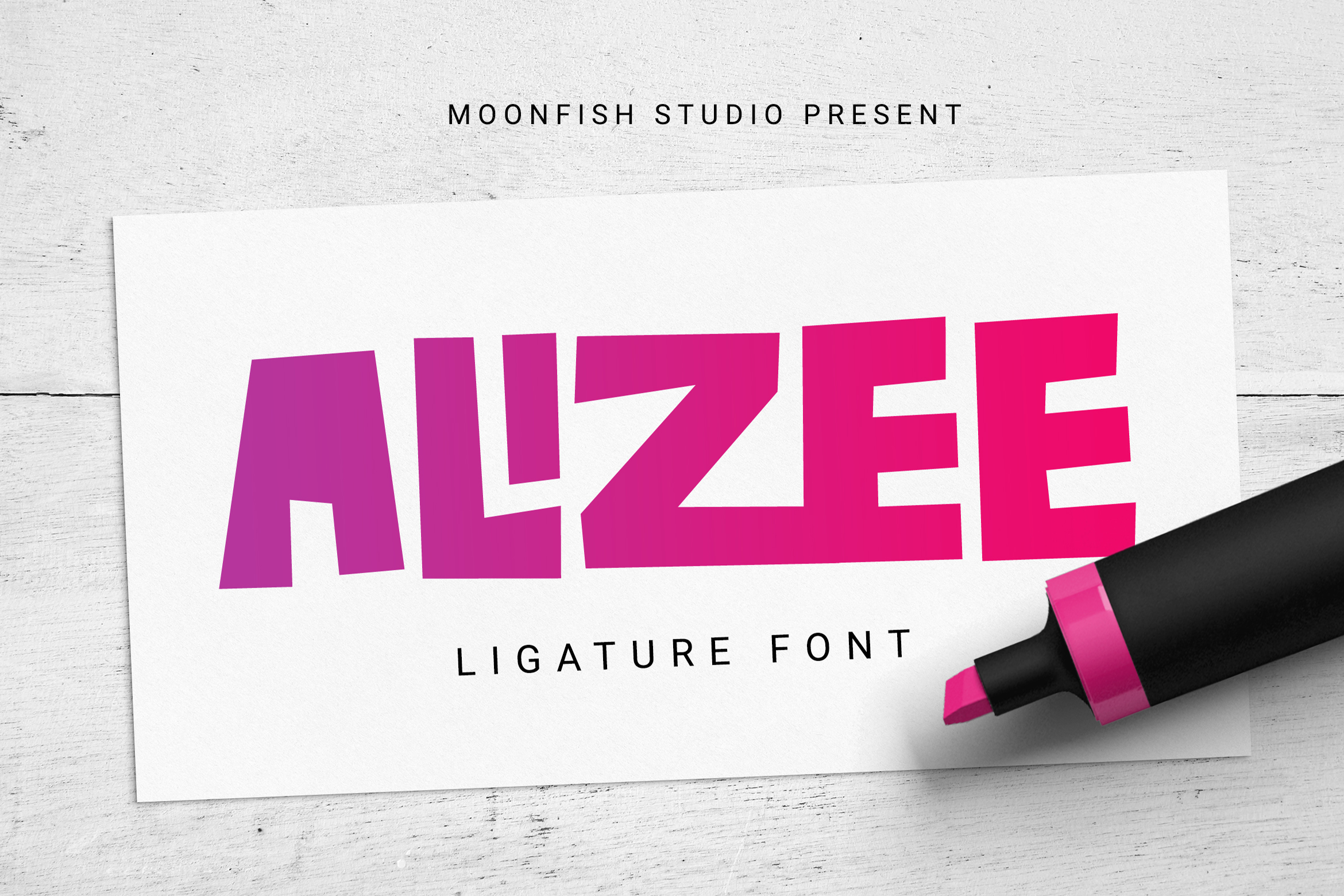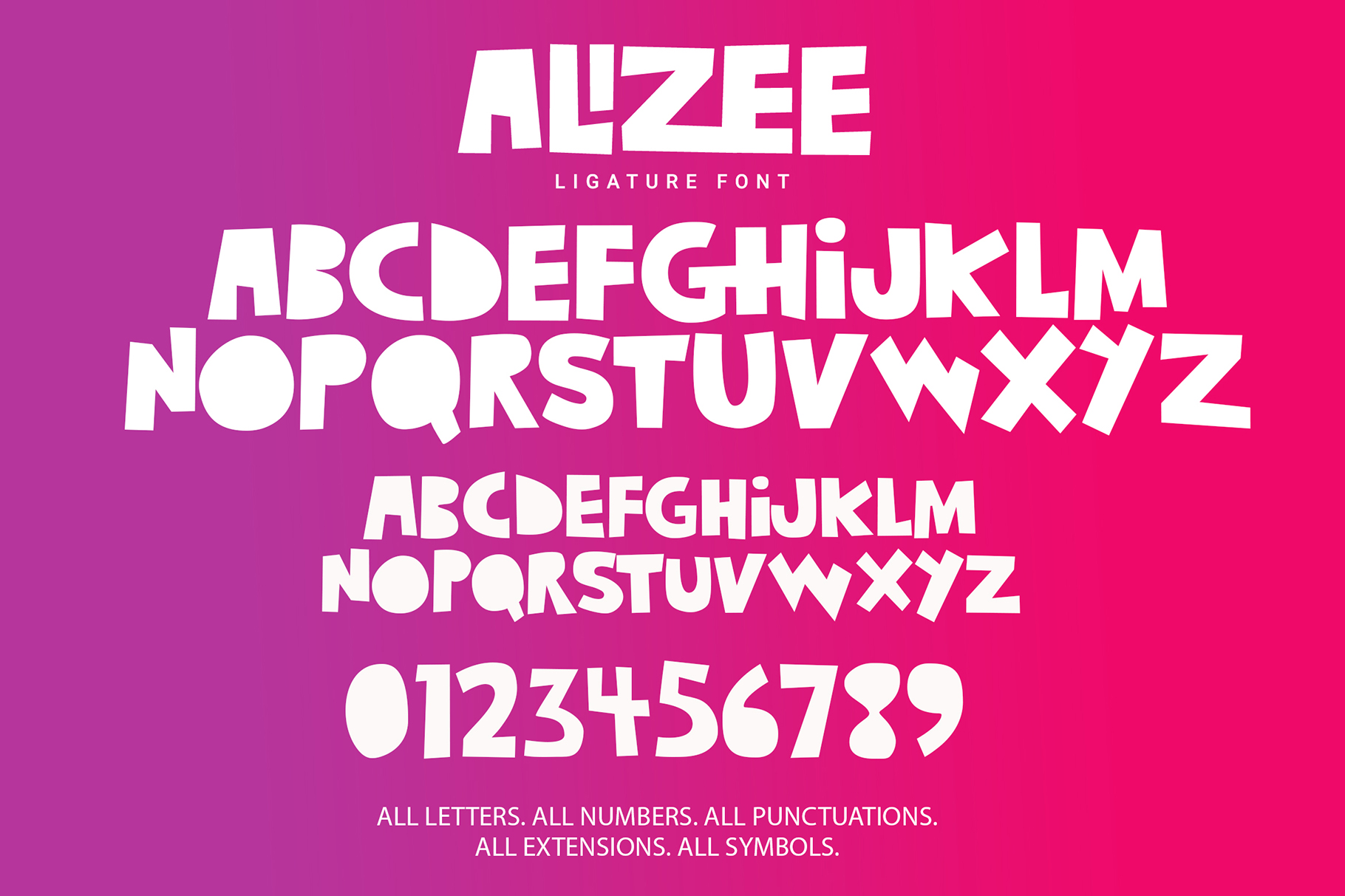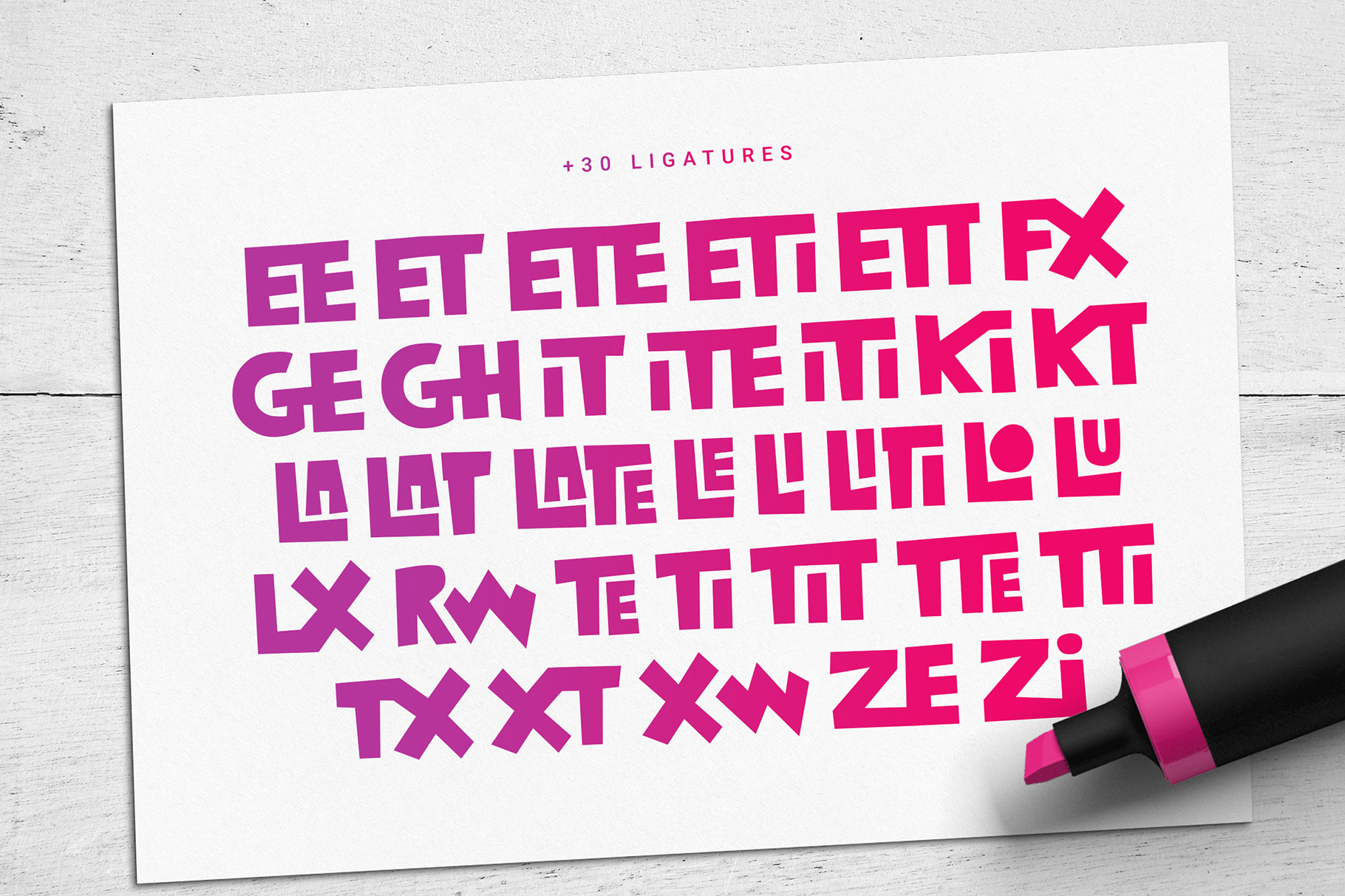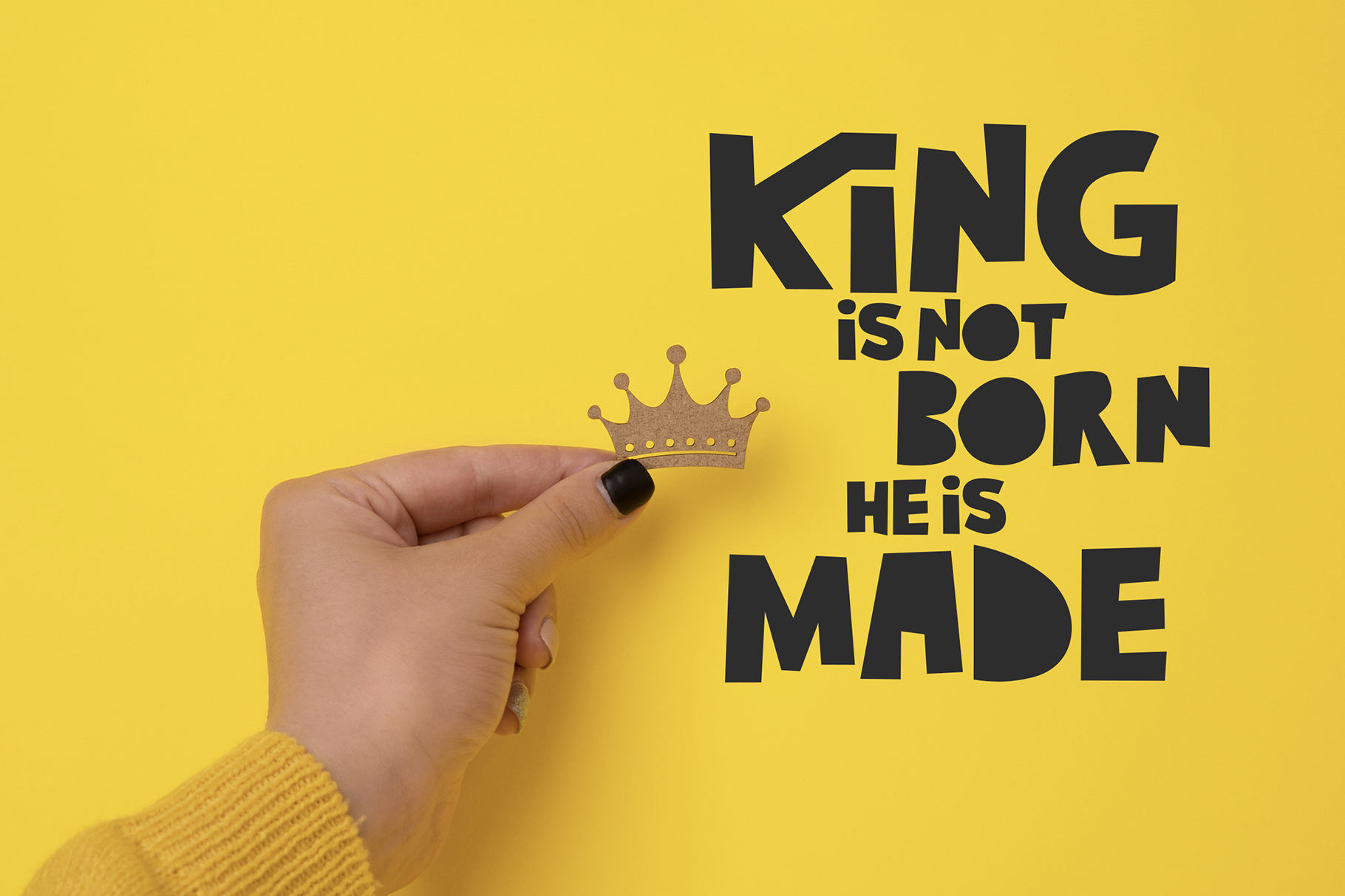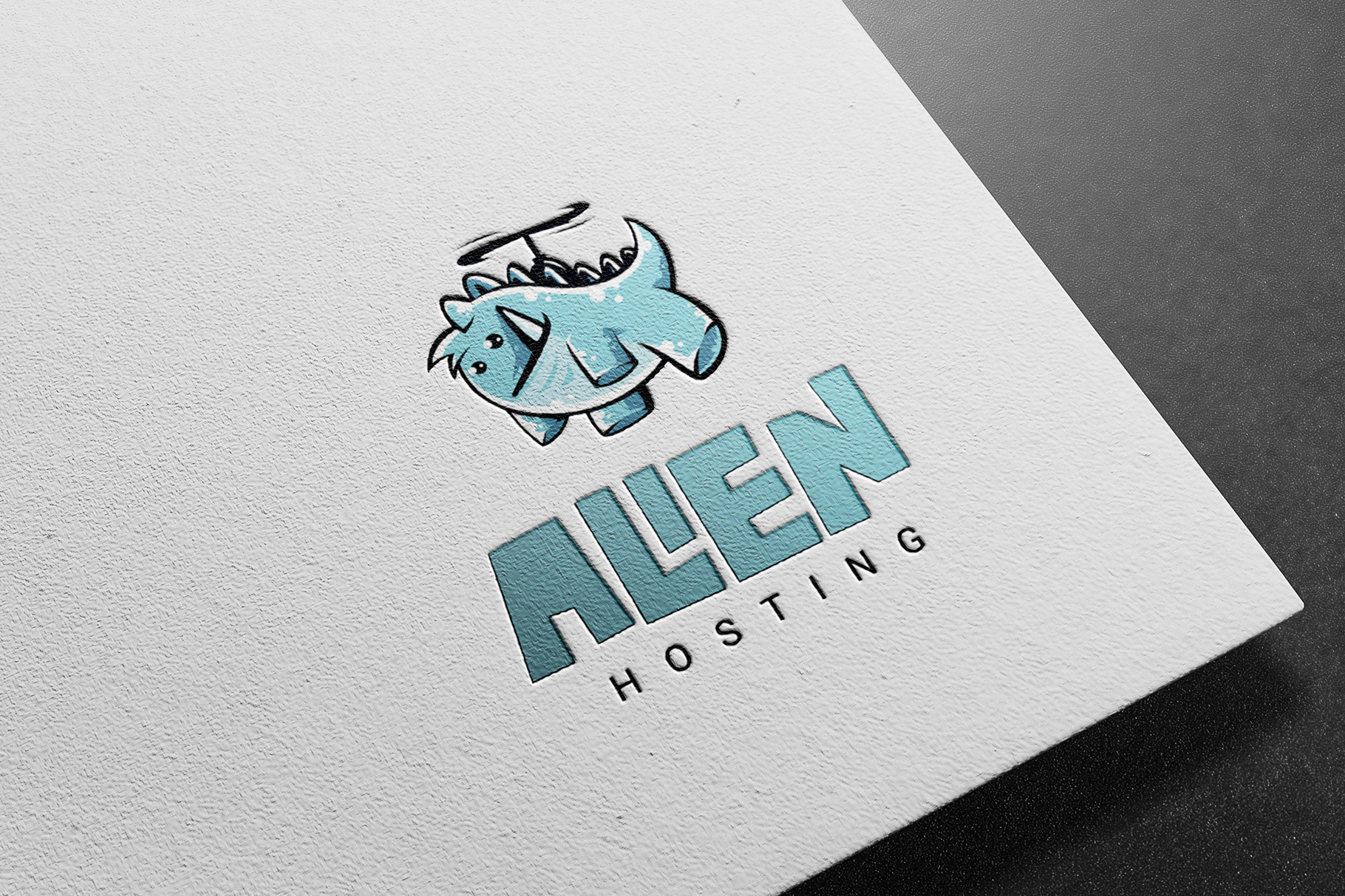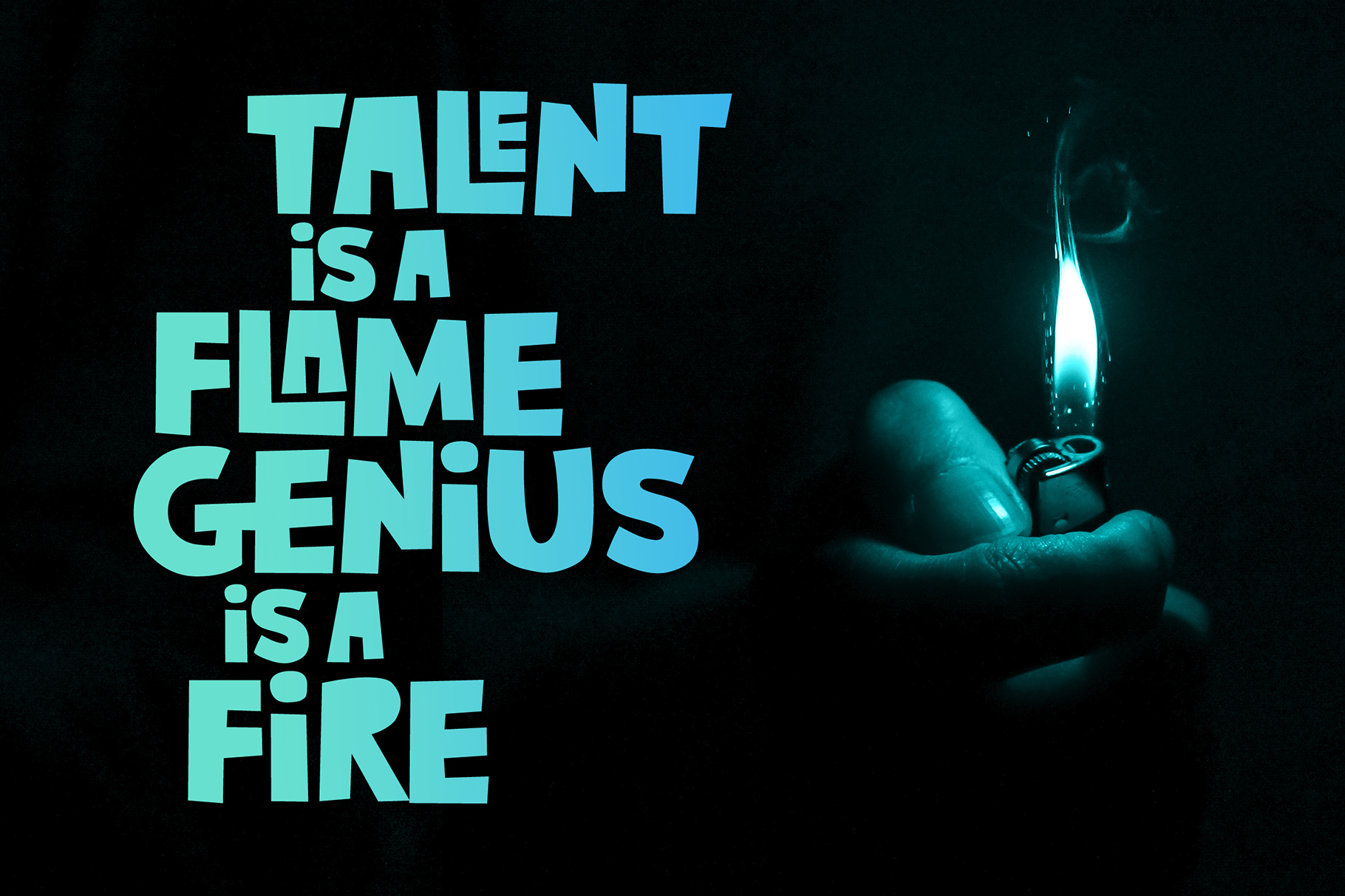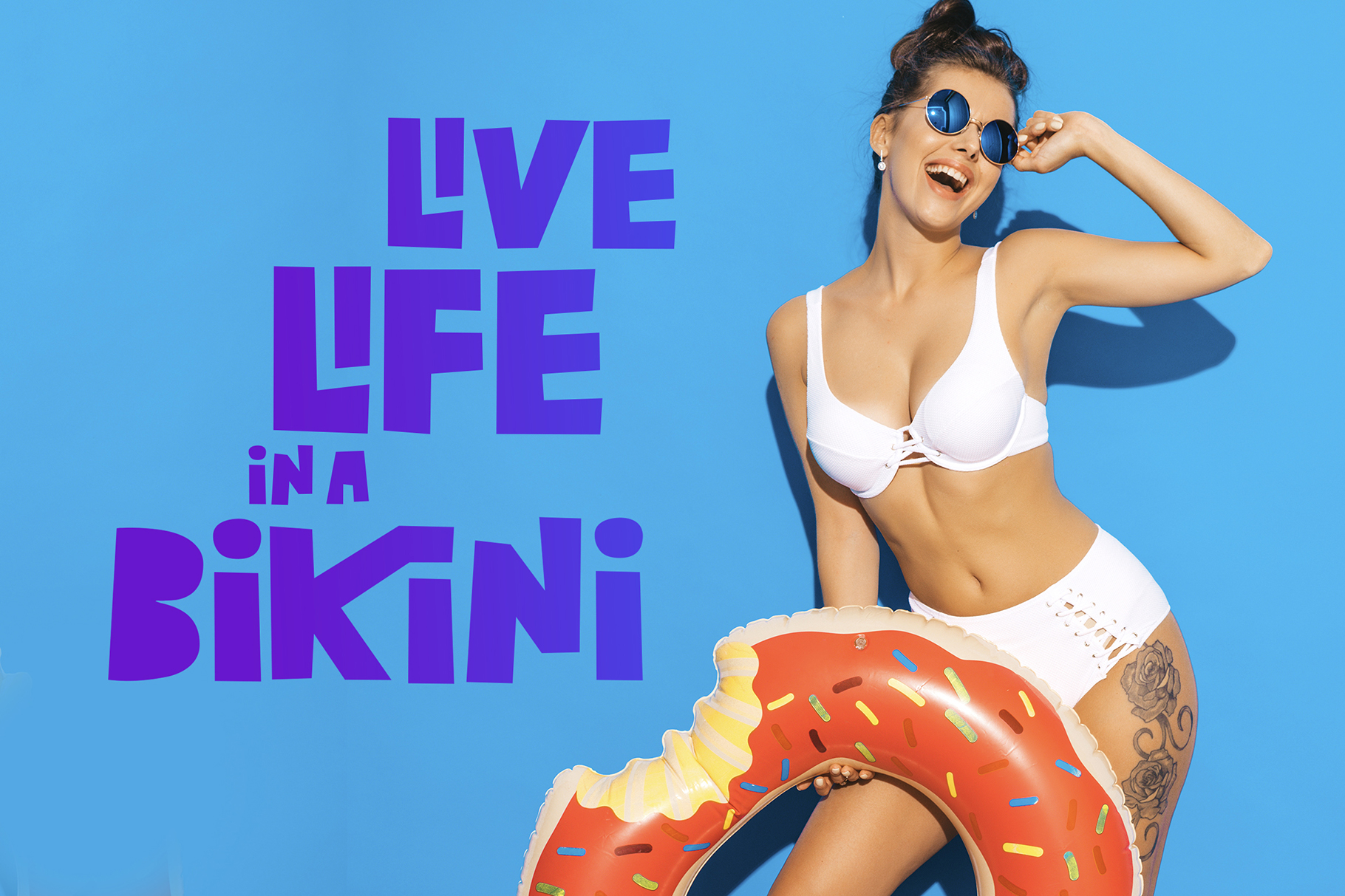
Alizee is a handwritten ligature font family with an original and modern style. If you need to create a cheerful logotype or title, Alizee is your font!
- Modern Glyphs Ligatures